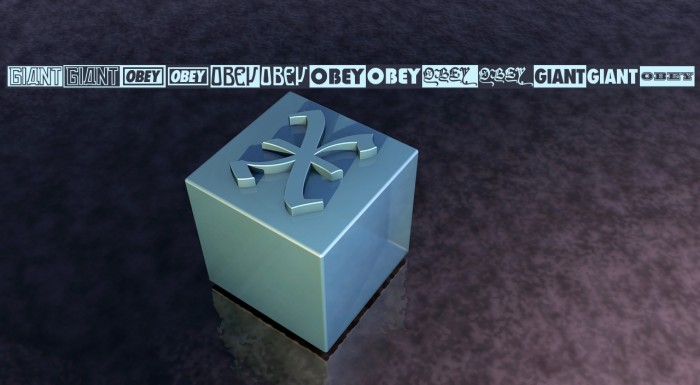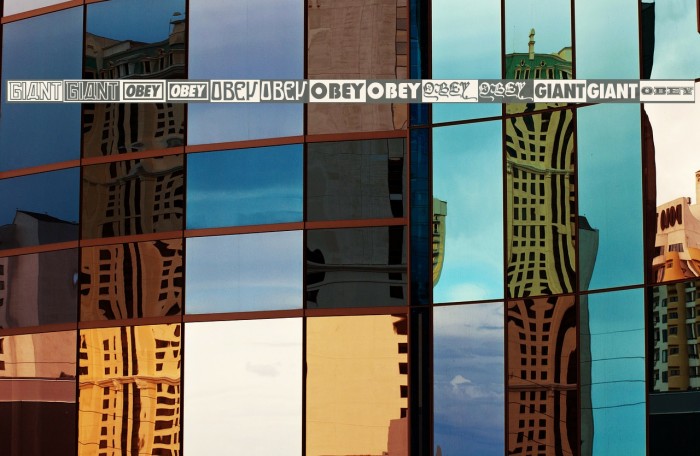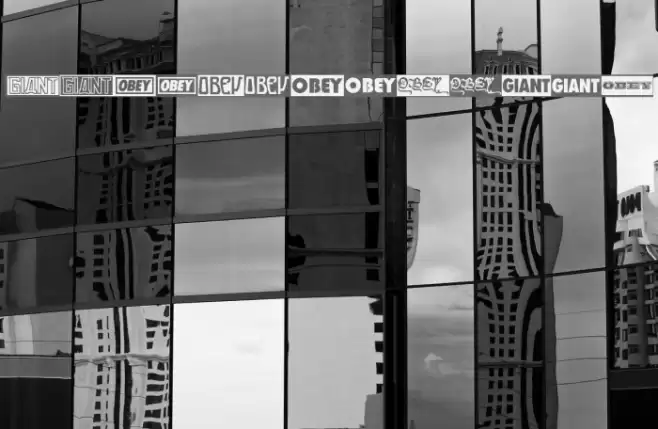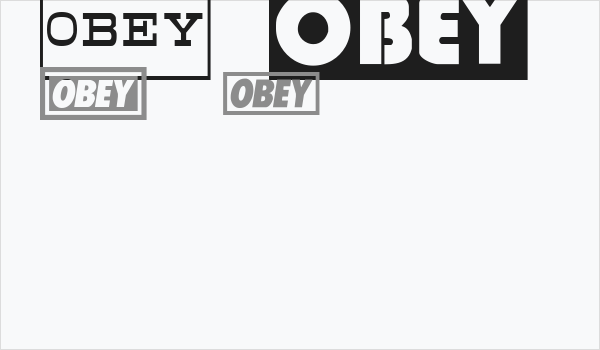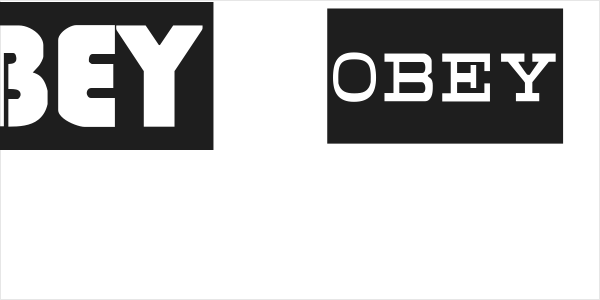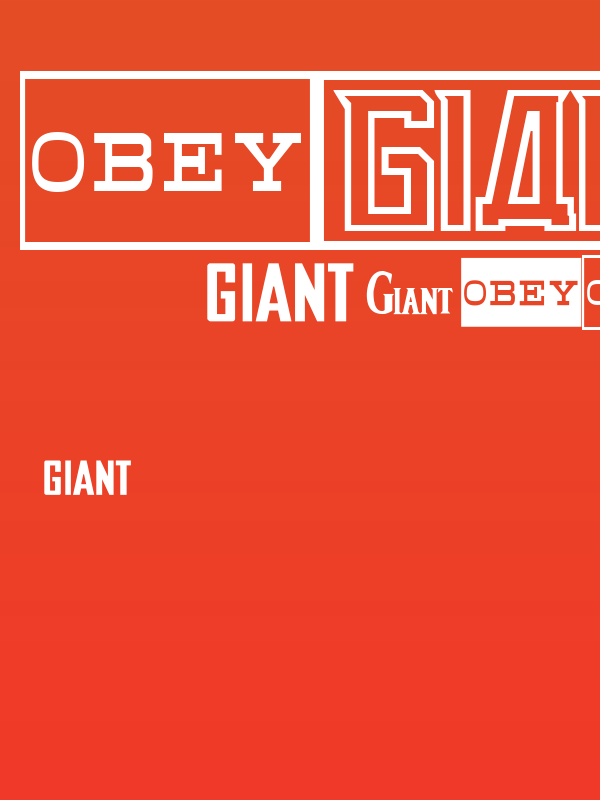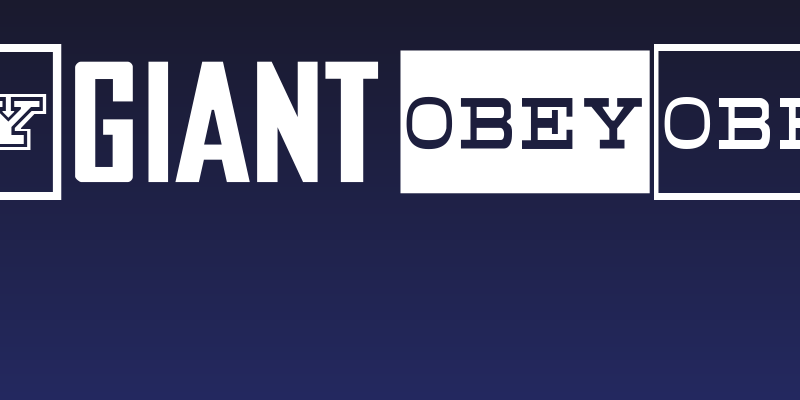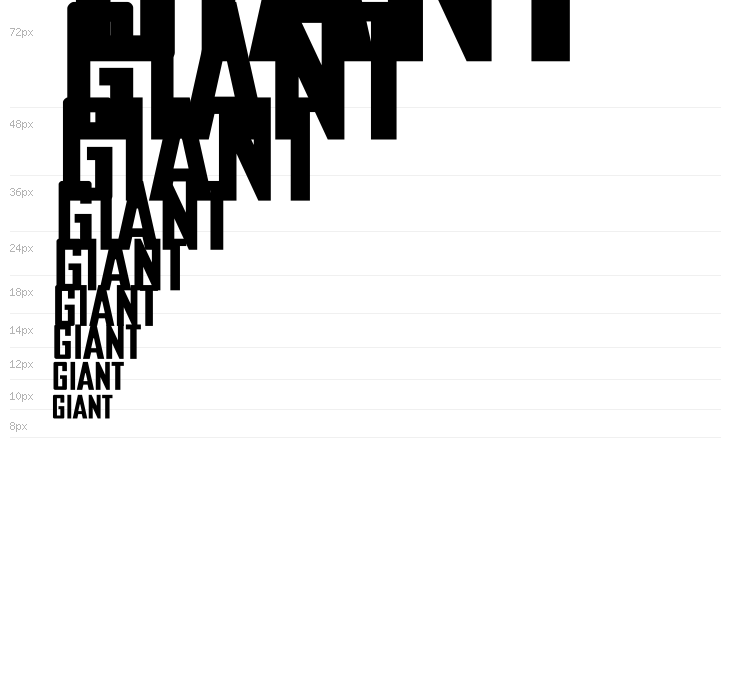
ObeyGiantPosterCaps Font
ObeyGiantPosterCaps Description
This font features a bold, impactful design with a strong presence, ideal for making statements. The characters are capitalized, with a geometric and structured form that conveys a sense of authority and power. The letters are tightly spaced, enhancing the compact and robust appearance. The style is reminiscent of propaganda or street art, with a modern twist that makes it suitable for contemporary designs. The font's versatility allows it to be used in various contexts, from posters to branding, where a bold and assertive message is desired. Its unique character shapes and solid lines make it stand out, ensuring that any text set in this font will capture attention.
| Proposed Projects | Ideal for posters, branding, and any design requiring a bold statement. |